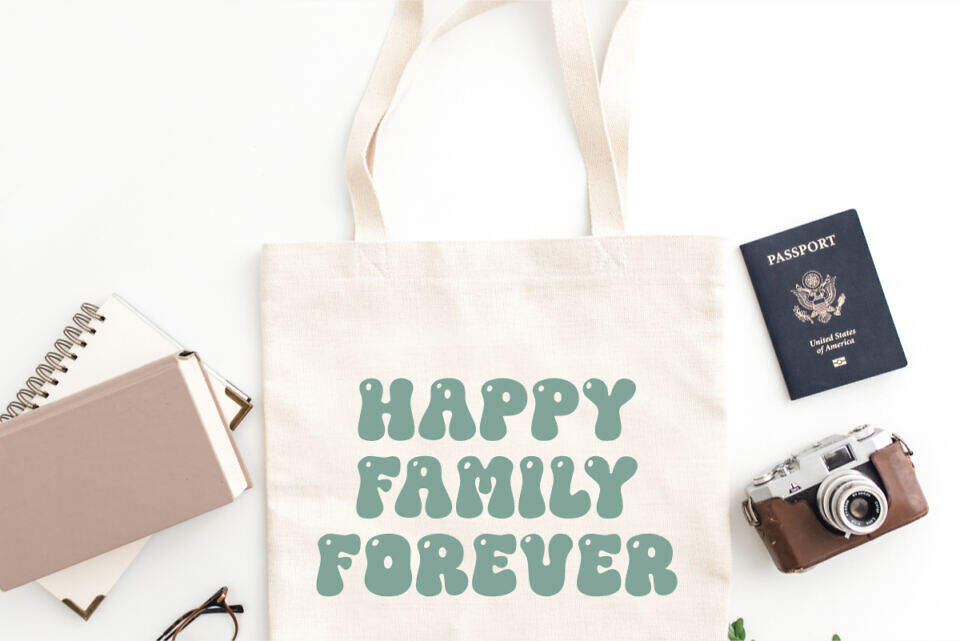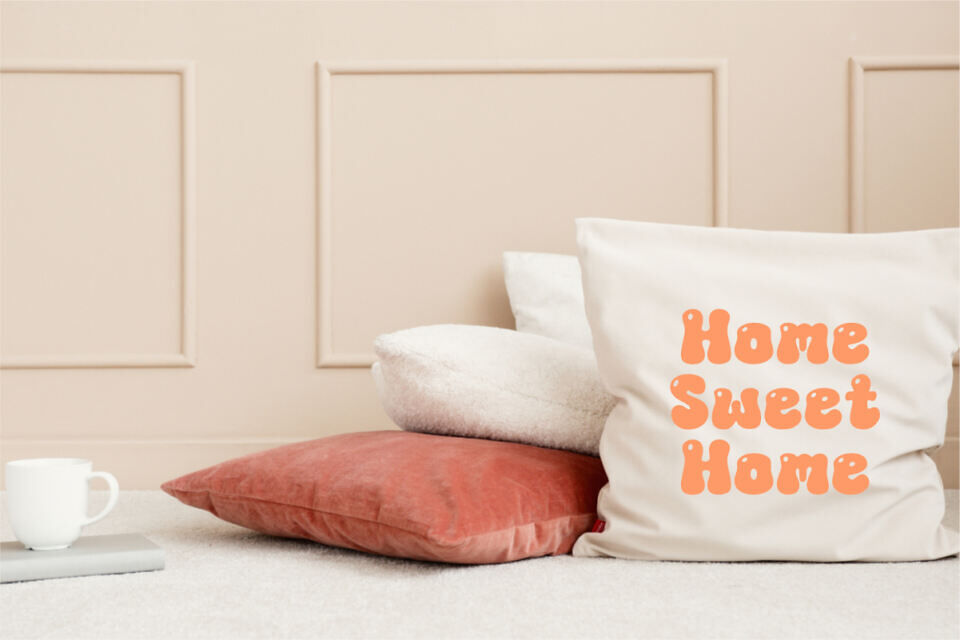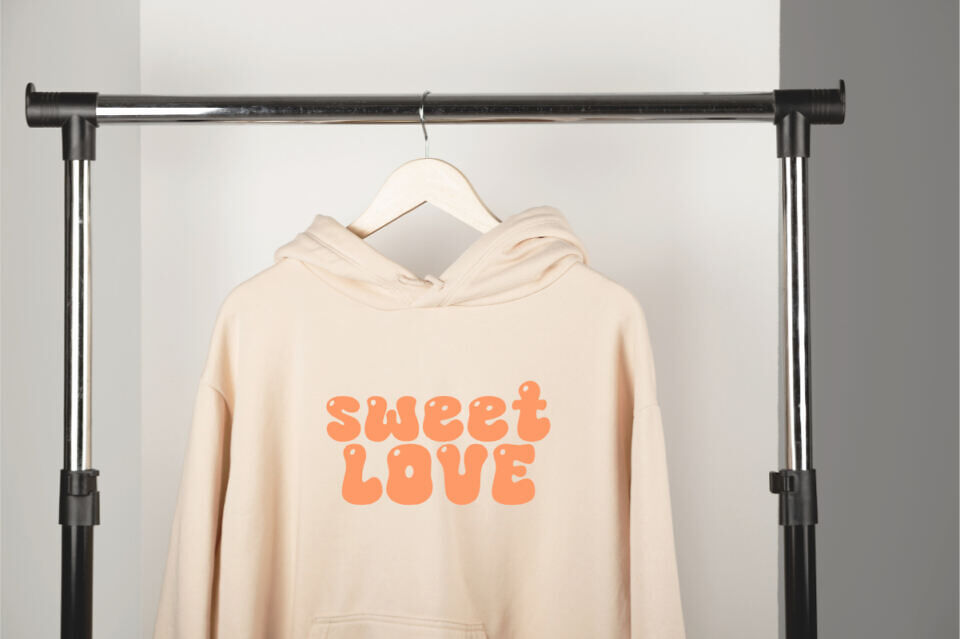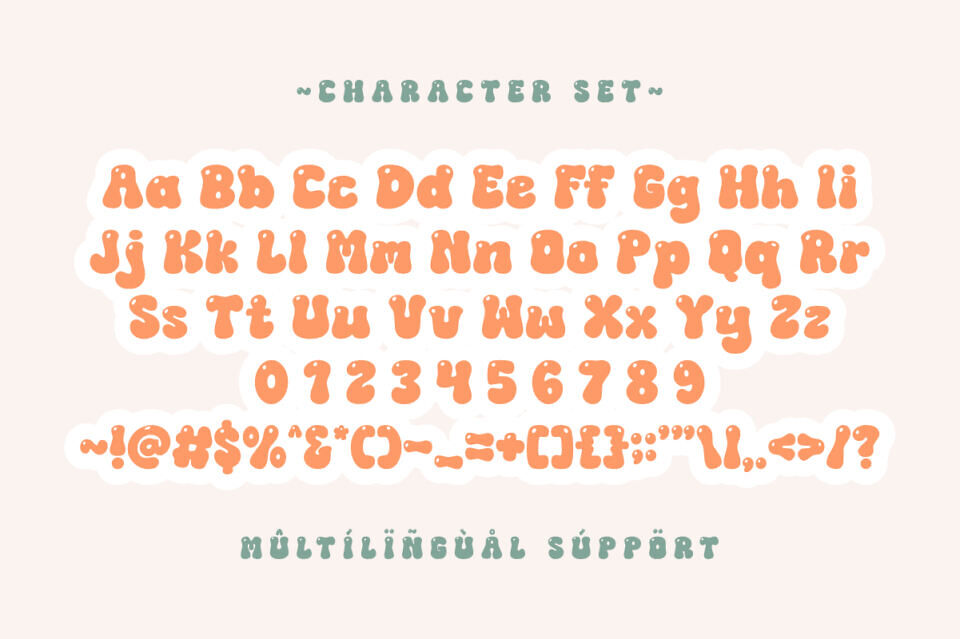
Summer Energy is a vibrant and exhilarating groovy display font that radiates the warmth and cheerfulness of a sunny summer day. Its plump, rounded, and wonderfully soft letterforms evoke a nostalgic feeling of classic retro aesthetics, while maintaining a fresh and dynamic appeal.
This font is perfect for infusing a dose of energetic fun and laid-back coolness into a wide array of creative projects. Its distinctively bubbly and retro style makes it exceptionally well-suited for products targeting end-users who enjoy crafting with tools like Cricut and for sublimation projects, as well as for creating appealing stickers and planner elements with a truly unique and carefree flair.